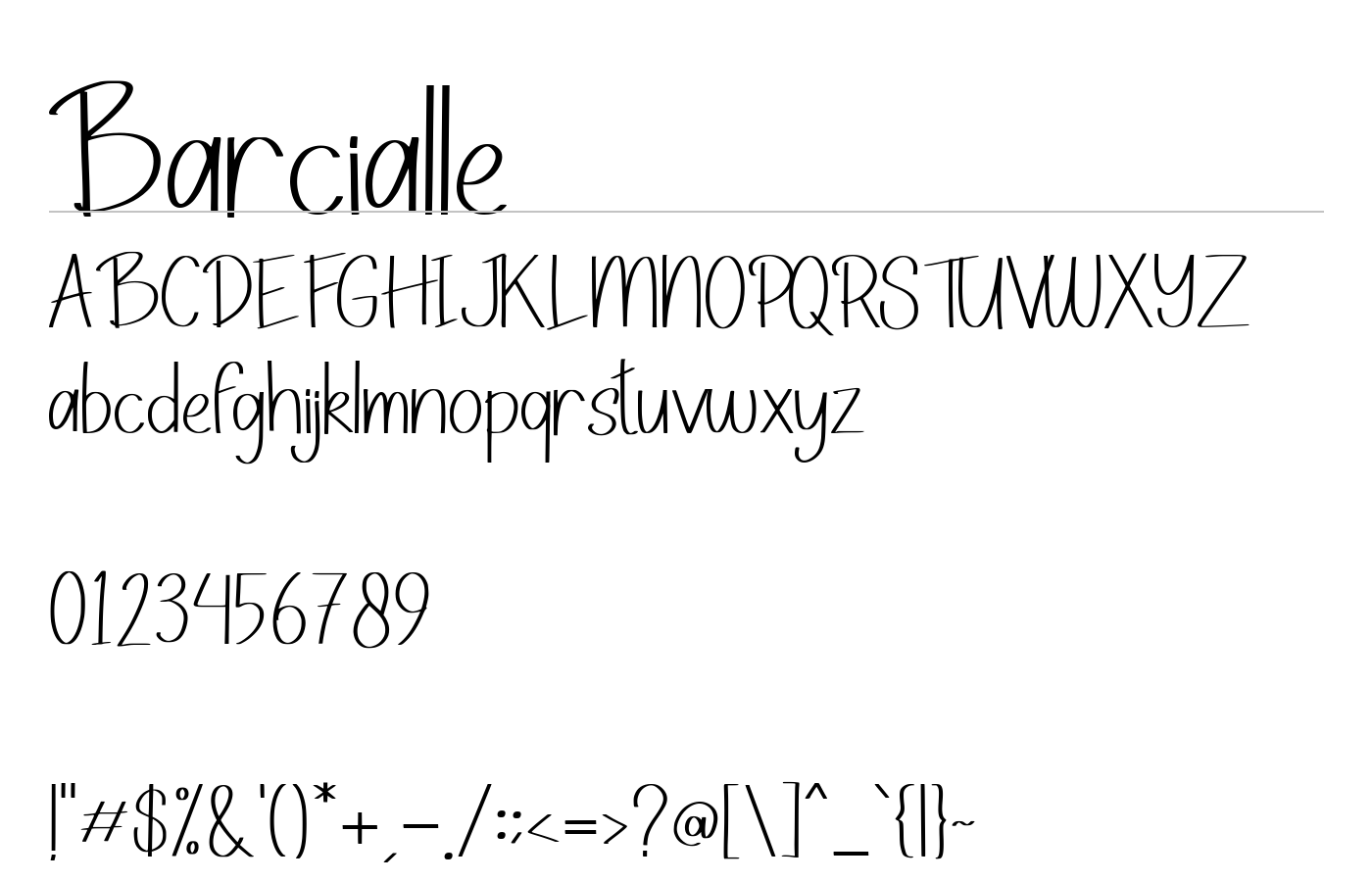
Barcialle is a whimsical, handwritten-style sans serif font with tall, slender letters and a playful, casual feel. Its light weight and quirky letterforms, including unique loops and irregular strokes, make it ideal for creative projects, personal branding, and informal content where a friendly and approachable tone is desired. This font works well in headlines, invitations, and any design seeking a charming, handcrafted touch.
Barcialle Font
About Barcialle Font
| Font family | Barcialle Font |
| Designer | AEN Creative Studio 2022 |